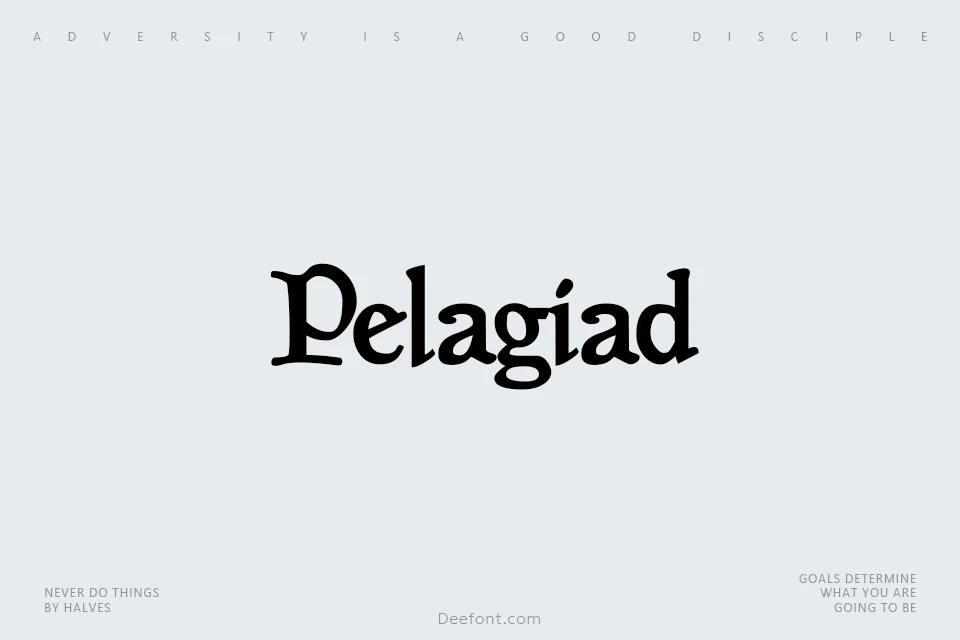
Pelagiad Font
Pelagiad Font is a free, open-source serif typeface inspired by Magic Cards and EF Medieva. Designed by Isak Larborn, it is primarily used in the OpenMW game engine but can be applied to any project. Pelagiad offers a unique blend of elegance and playfulness, making it suitable for various creative endeavors. Its vector-based design ensures sharpness and clarity, especially at larger sizes. The font supports multilingual characters and includes uppercase and lowercase letters, numbers, and symbols. Pelagiad is available under the SIL Open Font License, making it accessible for both personal and commercial use.